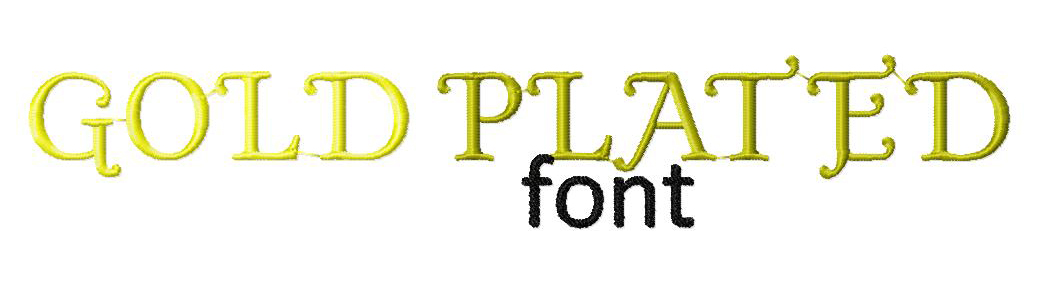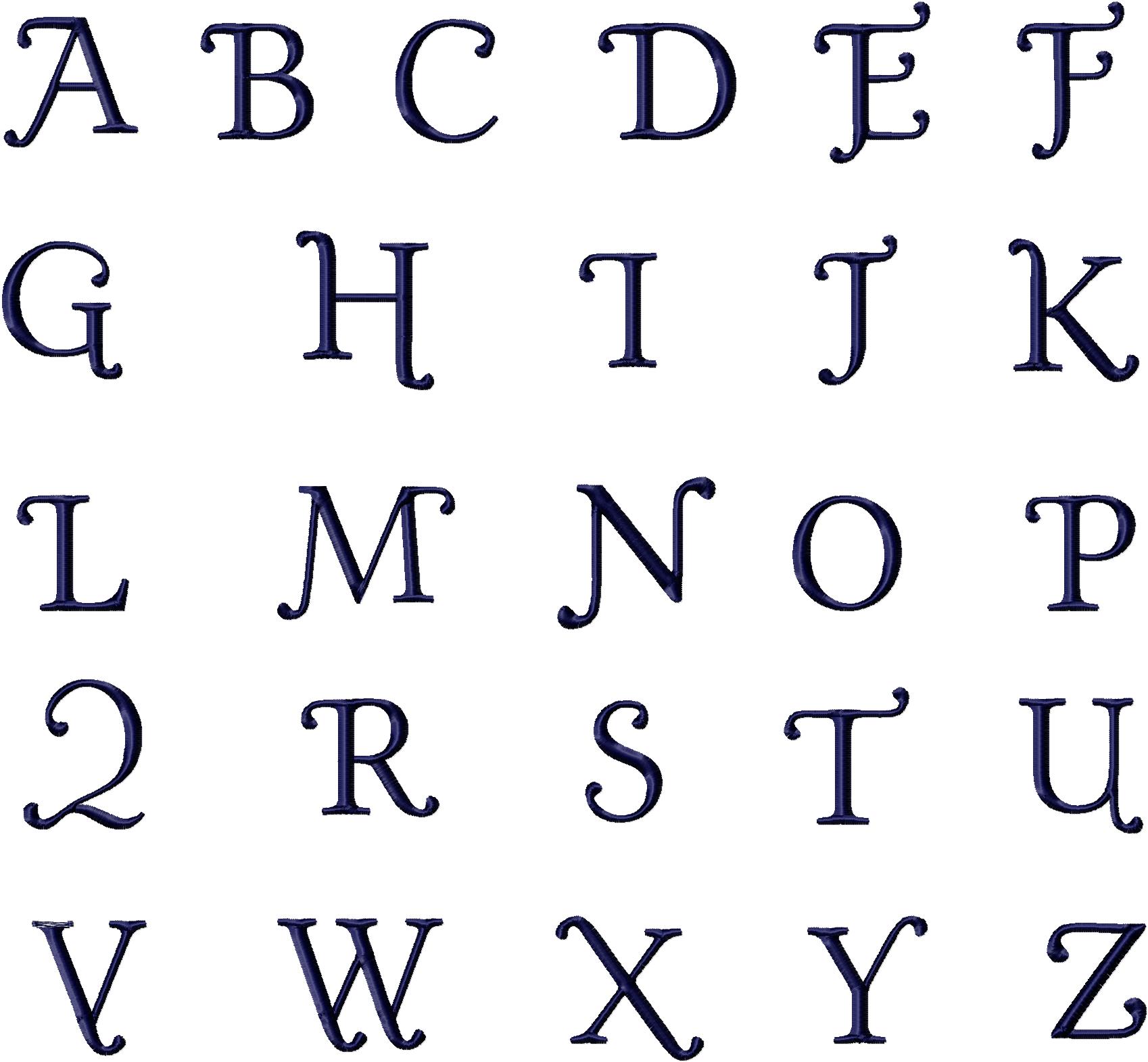
Gold Plated ExampleCover a project in glitter and gold when you monogram with this delightful machine embroidery font set! Download the Gold Plated Machine Embroidery Font Set for FREE for one day only.
Gold Plated Together
The Gold Plated Machine Embroidery Font Set includes all Uppercase Letters, Numbers and Bonus Punctuation in all of the following sizes: 1" 2" & 3"